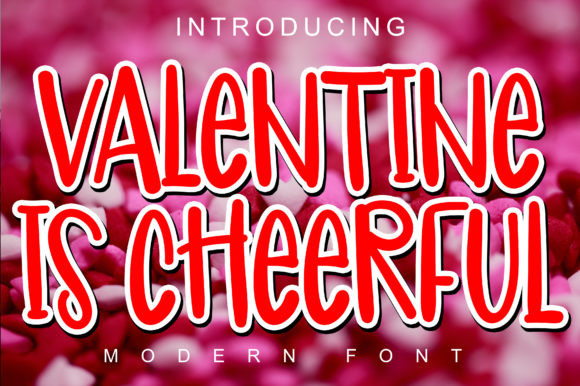
Valentine is Cheerful: A Font That Elevates Your Design
When it comes to typography, the right font can make all the difference. Valentine is Cheerful is a modern display font that stands out for its readability, simplicity, and stylish appeal. Designed with both aesthetics and functionality in mind, this font offers more than just visual charmâit brings clarity, confidence, and consistency to your creative projects.
A Modern Font with Purpose
Valentine is Cheerful is not just another font; it's a carefully crafted solution for designers, marketers, educators, and content creators who value both form and function. Its clean lines and balanced proportions make it versatile enough to work across a variety of mediumsâfrom digital presentations to print materials. Unlike some fonts that prioritize style over legibility, Valentine is Cheerful maintains readability even at smaller sizes, ensuring your message remains clear and impactful.
Why It Matters for Your Projects
In a world where attention spans are short and competition is fierce, the ability to communicate effectively is key. Valentine is Cheerful helps you cut through the noise by offering a font that is both visually engaging and easy to read. Whether you're creating a social media post, designing a logo, or crafting a brochure, this font adds a touch of sophistication without compromising on clarity.
One of the most significant benefits of using Valentine is Cheerful is its versatility. It works well in both digital and print formats, making it an excellent choice for professionals who need to maintain brand consistency across multiple platforms. For instance, a small business owner might use it for their website headers, social media graphics, and printed flyersâensuring a cohesive look that reinforces their brand identity.
Supporting Creativity and Communication
For creatives and entrepreneurs, the right font can be a powerful tool in expressing ideas and building connections. Valentine is Cheerful supports creativity by offering a fresh, modern aesthetic that can inspire new design directions. Its simple yet stylish appearance makes it ideal for branding, invitations, and promotional materials where a strong visual impact is essential.
Consider a scenario where a blogger wants to create a visually appealing newsletter. Using Valentine is Cheerful for headlines and subheadings can add a sense of professionalism while keeping the content approachable. This balance between elegance and accessibility ensures that readers remain engaged without feeling overwhelmed.
Improving Efficiency and Presentation
Time is a valuable resource, especially for busy professionals and small business owners. Valentine is Cheerful streamlines the design process by offering a font that is both aesthetically pleasing and highly functional. With its clean design, it reduces the need for excessive styling or formatting, allowing you to focus on the content itself.
Moreover, the fontâs consistent spacing and uniformity help improve the overall presentation of your work. This is particularly useful for educators who need to create handouts, slides, or lesson plans. A well-designed font like Valentine is Cheerful can enhance the readability of educational materials, making them more effective for students and learners.
Who Benefits Most from Valentine is Cheerful?
While anyone can benefit from using Valentine is Cheerful, certain groups may find it particularly valuable. Marketers and bloggers will appreciate its ability to elevate brand messaging and engage audiences. Freelancers and designers will value its versatility and ease of use across different projects. Educators and small business owners will find it useful for creating professional-looking materials without requiring advanced design skills.
Additionally, hobbyists and consumers who enjoy personal projects such as scrapbooking, DIY crafts, or custom packaging will also benefit from the fontâs stylish yet readable design. Its modern appearance makes it suitable for a wide range of applications, from everyday use to more specialized tasks.
Real-World Use Cases
Letâs explore some real-world scenarios where Valentine is Cheerful shines:
- Branding: A startup launching a new product can use Valentine is Cheerful for its logo and website to create a memorable and professional image.
- Social Media: Content creators can incorporate the font into their posts, stories, and bios to maintain a cohesive brand voice.
- Print Materials: A local event planner might use the font for invitations and signage to ensure a clean, elegant look.
- Presentations: Teachers or presenters can use it for slide titles and key points to make their content more engaging.
- Marketing Collateral: A small business can apply the font to brochures, banners, and email templates to enhance visual appeal.
Each of these examples demonstrates how Valentine is Cheerful can be integrated into various aspects of daily work, helping users achieve better results with less effort.
By choosing Valentine is Cheerful, youâre not just selecting a typefaceâyouâre investing in a solution that aligns with your goals and values. Add it confidently to your projects, and you wonât be disappointed by the outcome.